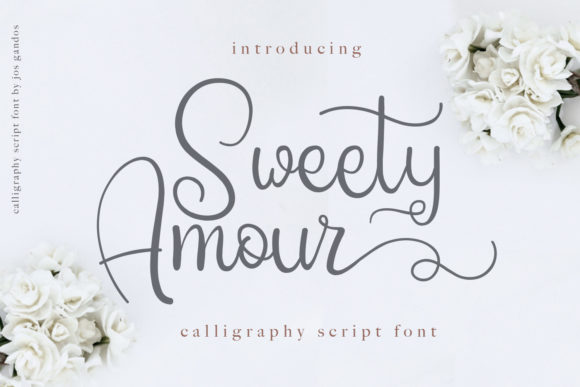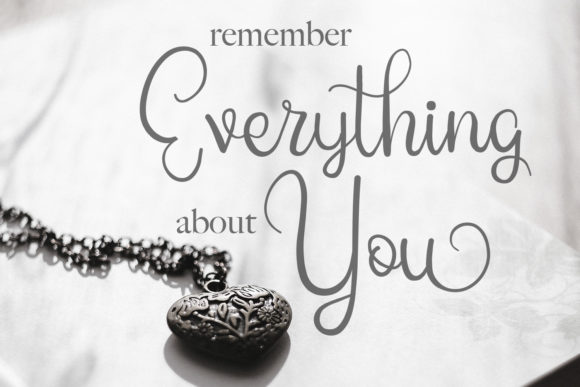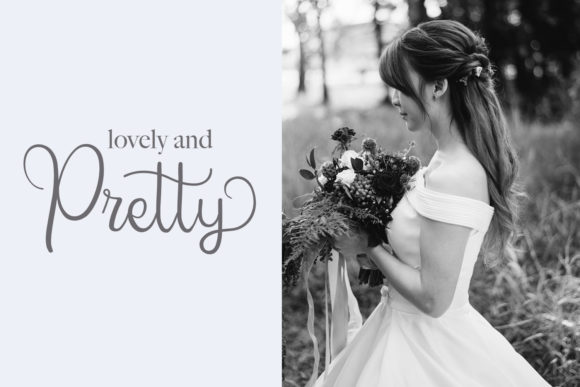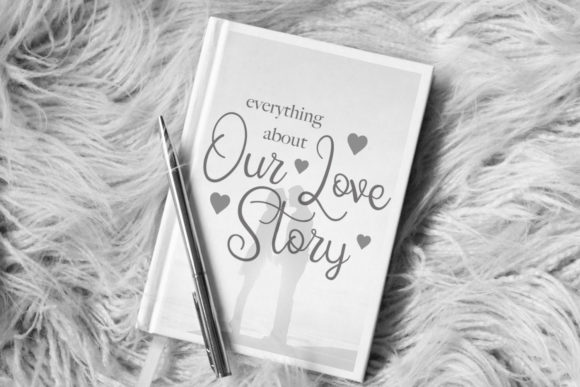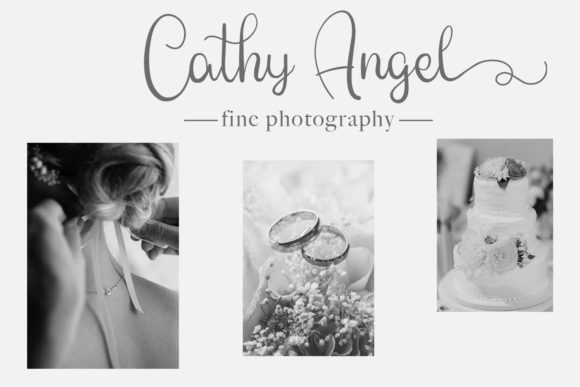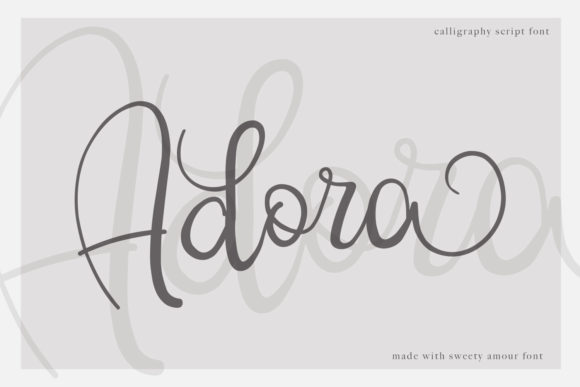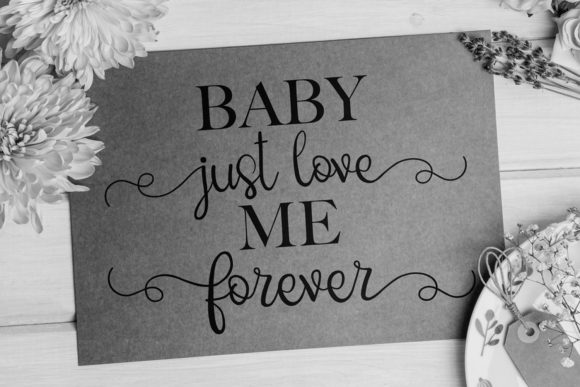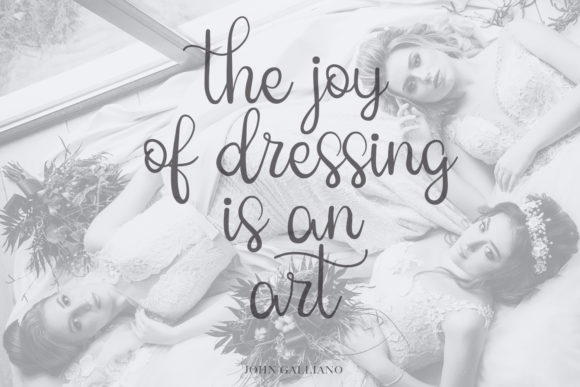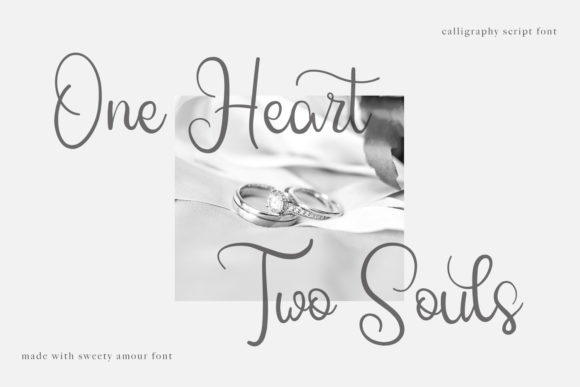
Sweety Amour Font
About Sweety Amour Font
Sweety Amour is a lovely handwritten font with incredible swashes. It will add a spark of sophistication to any design project!